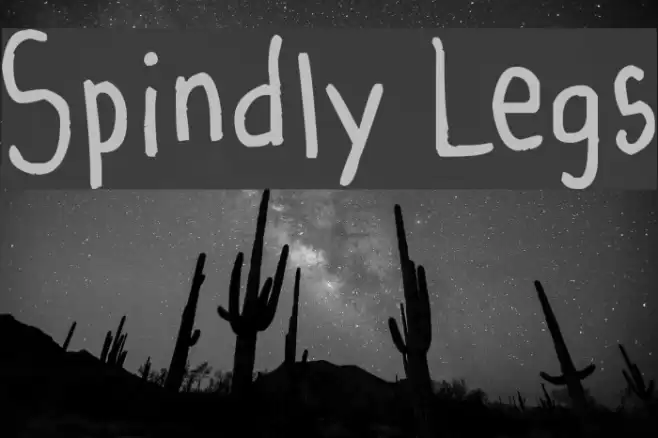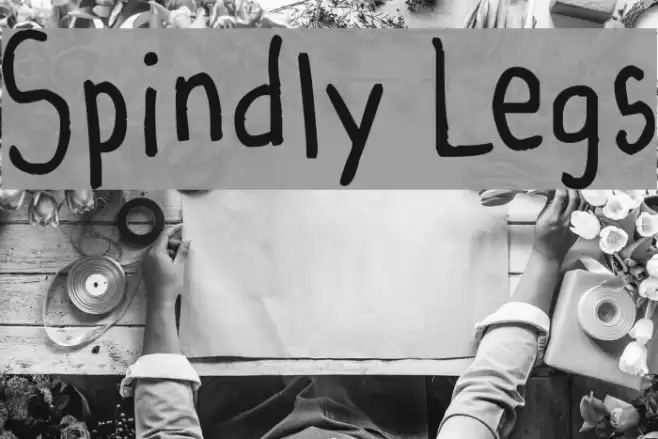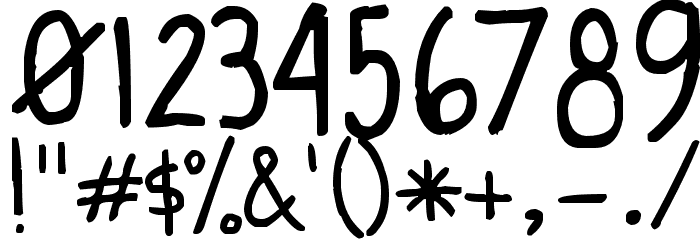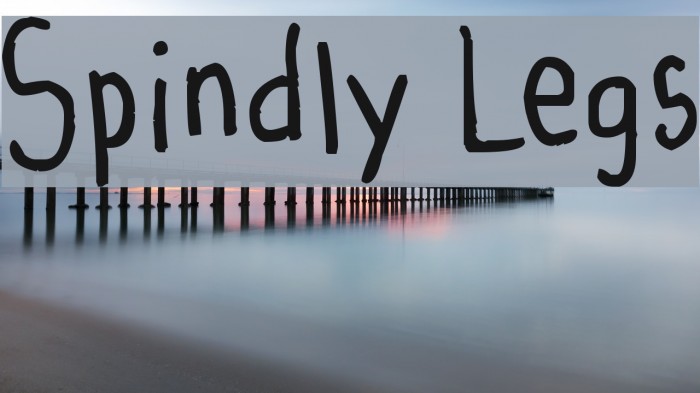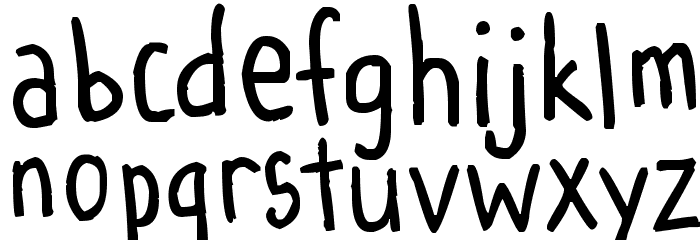
Spindly Legs Font
Spindly Legs Description
This font features a playful, hand-drawn style with irregular strokes and a casual appearance. The characters are unevenly weighted, giving them a whimsical and informal feel. The uppercase letters are tall and narrow, while the lowercase letters maintain a consistent height with slightly exaggerated ascenders and descenders. Numbers and special characters follow the same quirky style, adding to the font's overall charm. The strokes are uneven, contributing to a dynamic and lively look that is both approachable and unique.
A playful, hand-drawn font with irregular strokes and a whimsical style from Uncategorized fonts.
- Proposed Projects: Ideal for children's books, creative projects, casual invitations, and playful branding.
- Overall Style: Casual, Playful
- Use Case: Headlines, Informal text, Creative projects